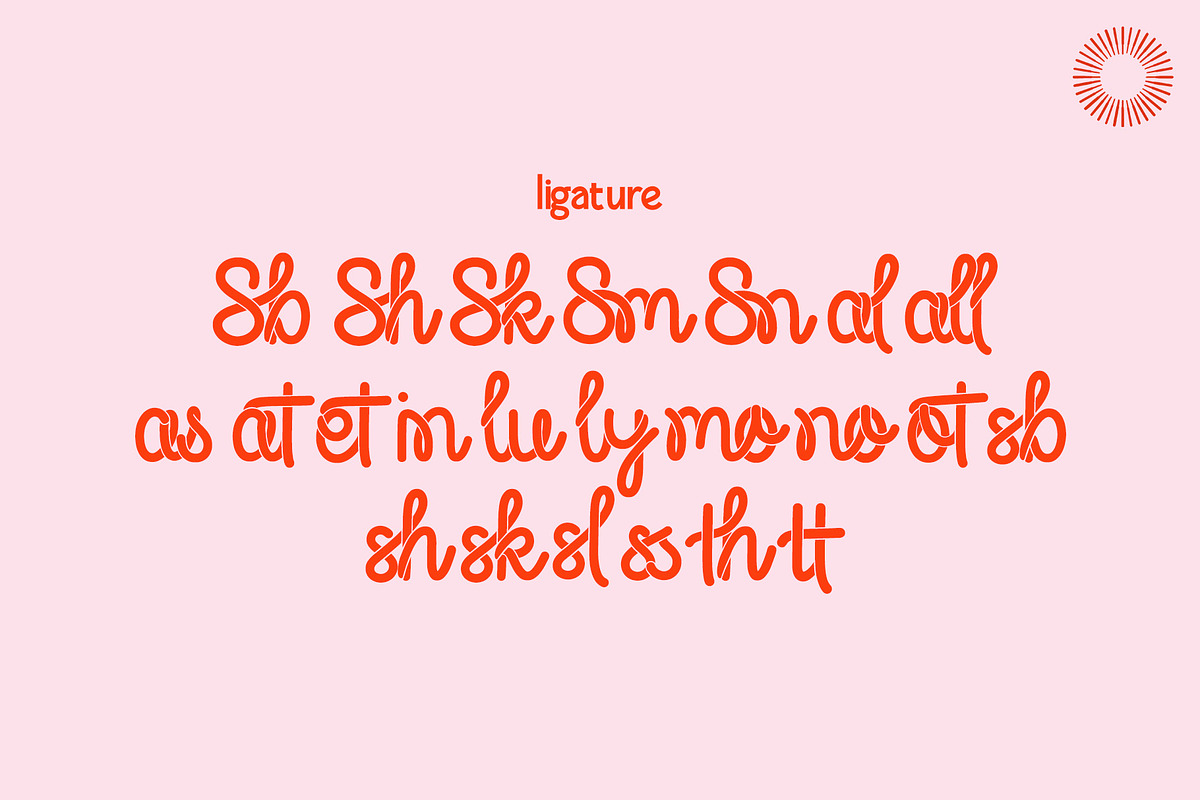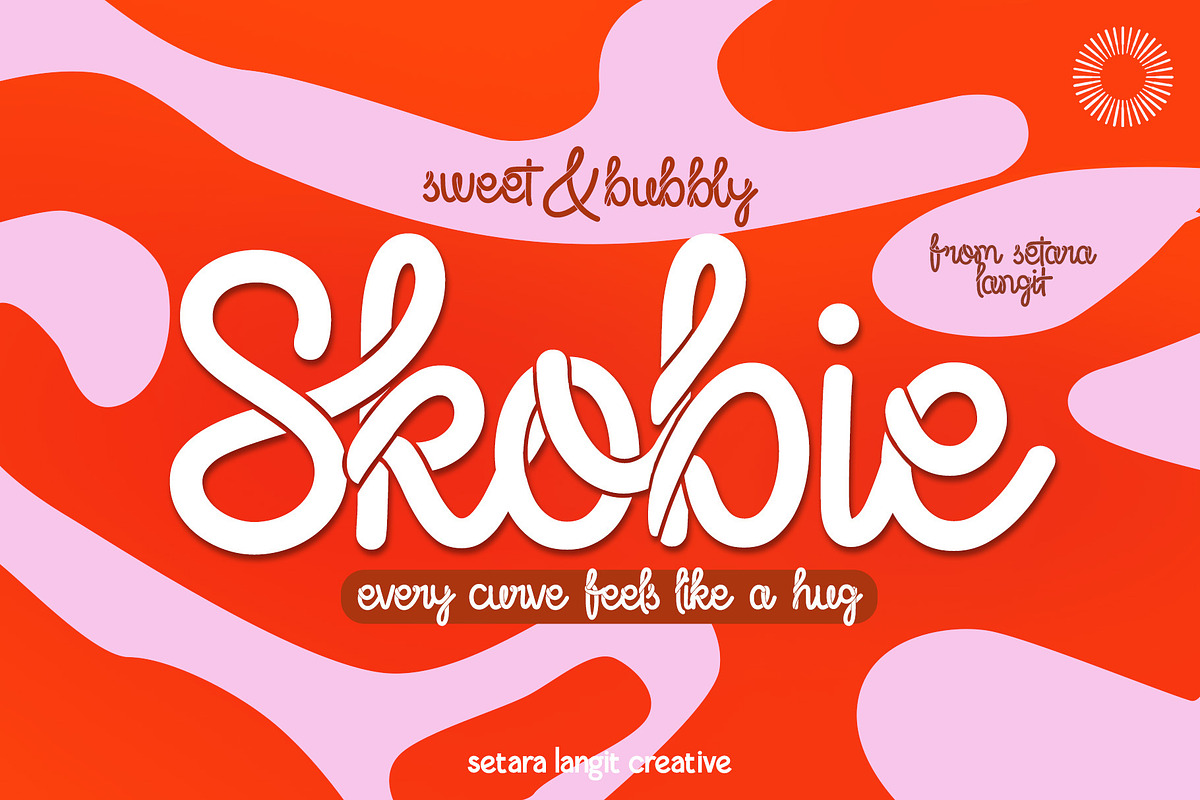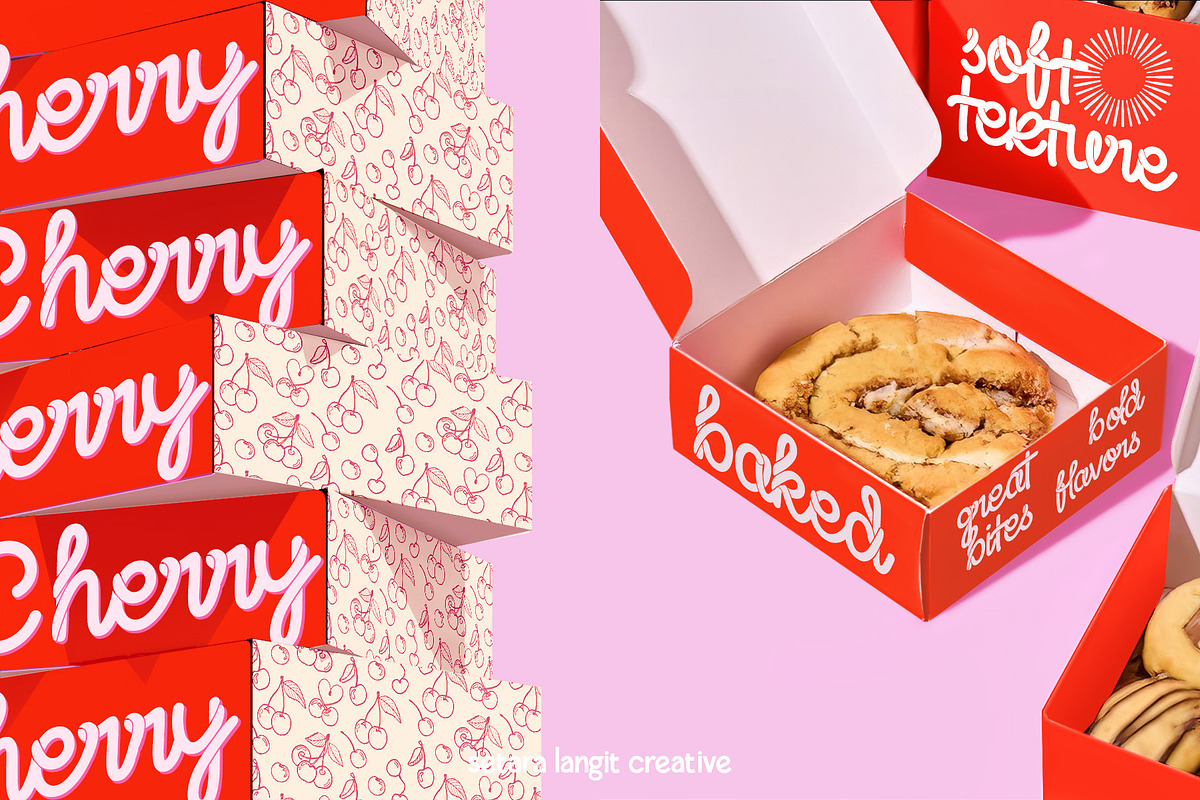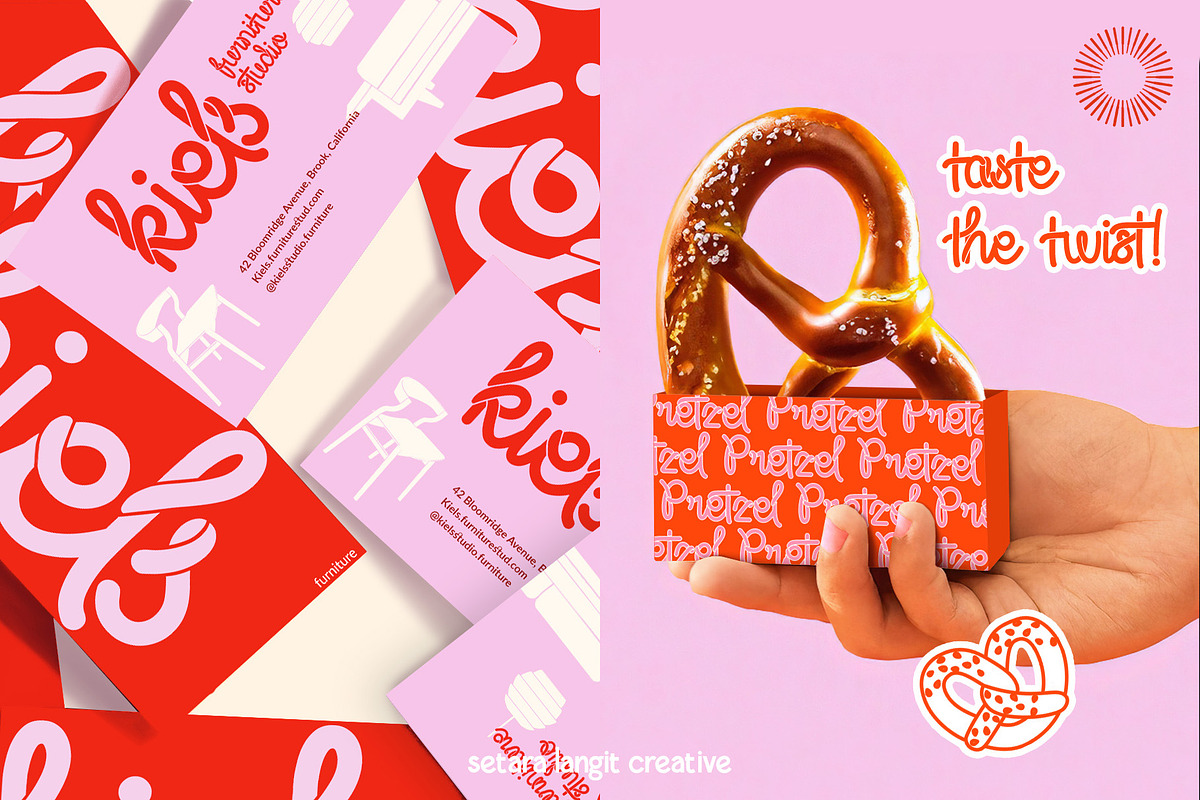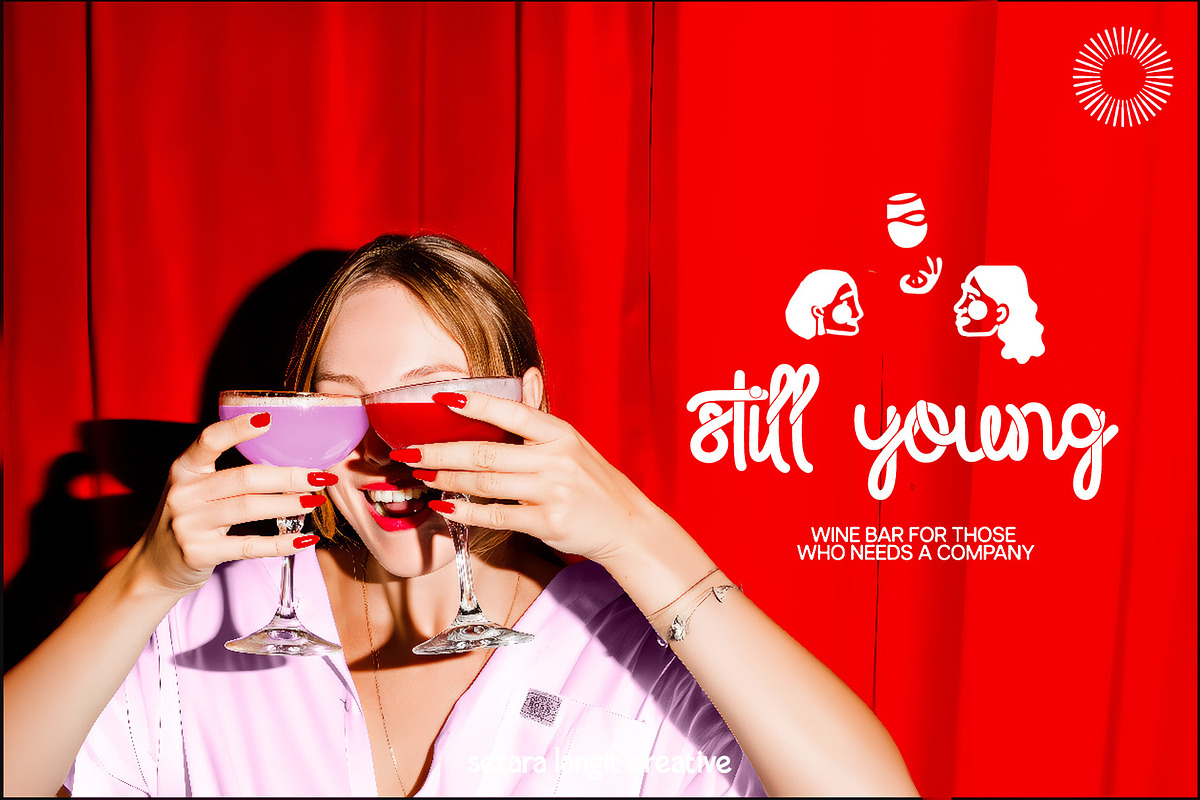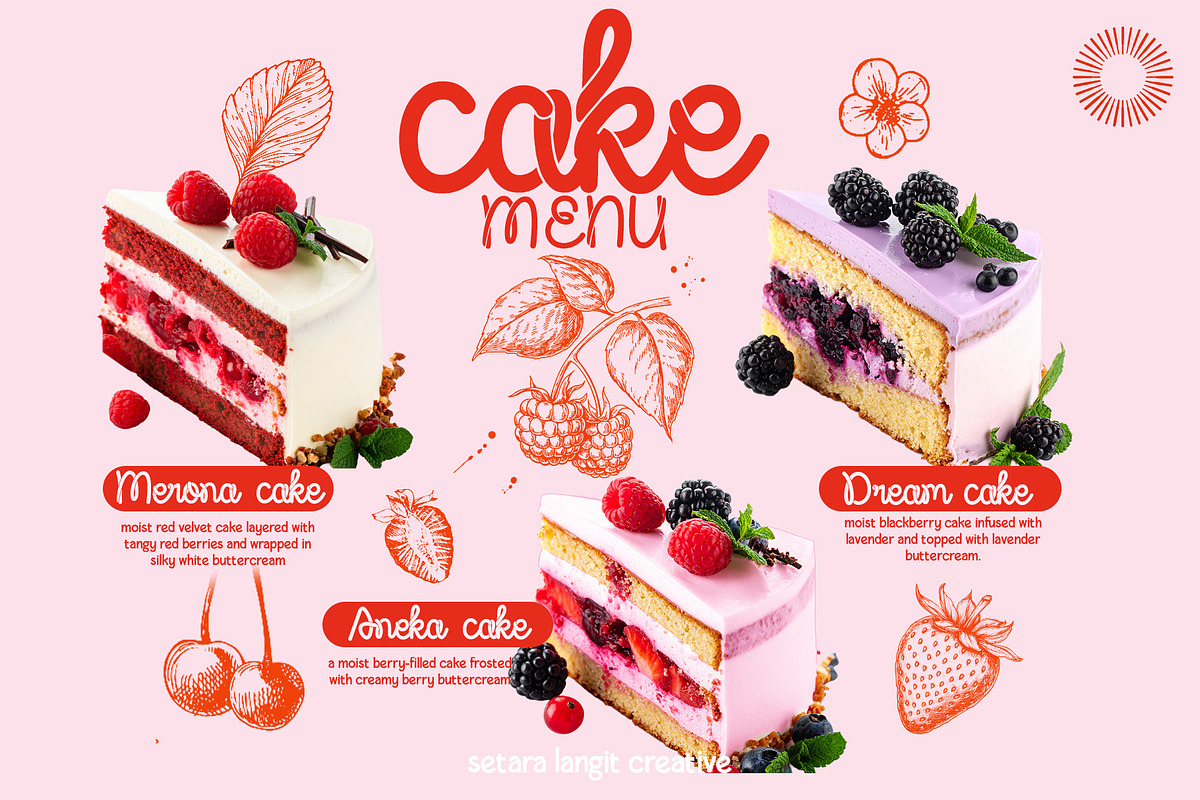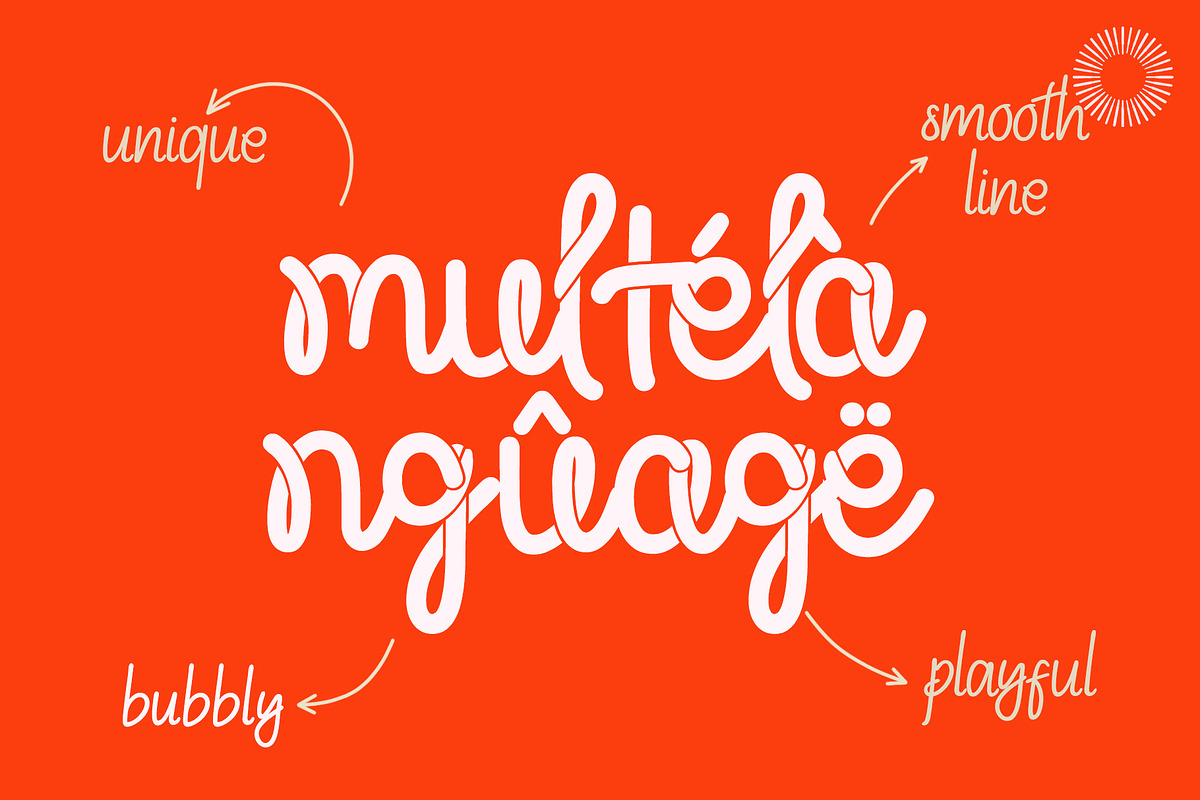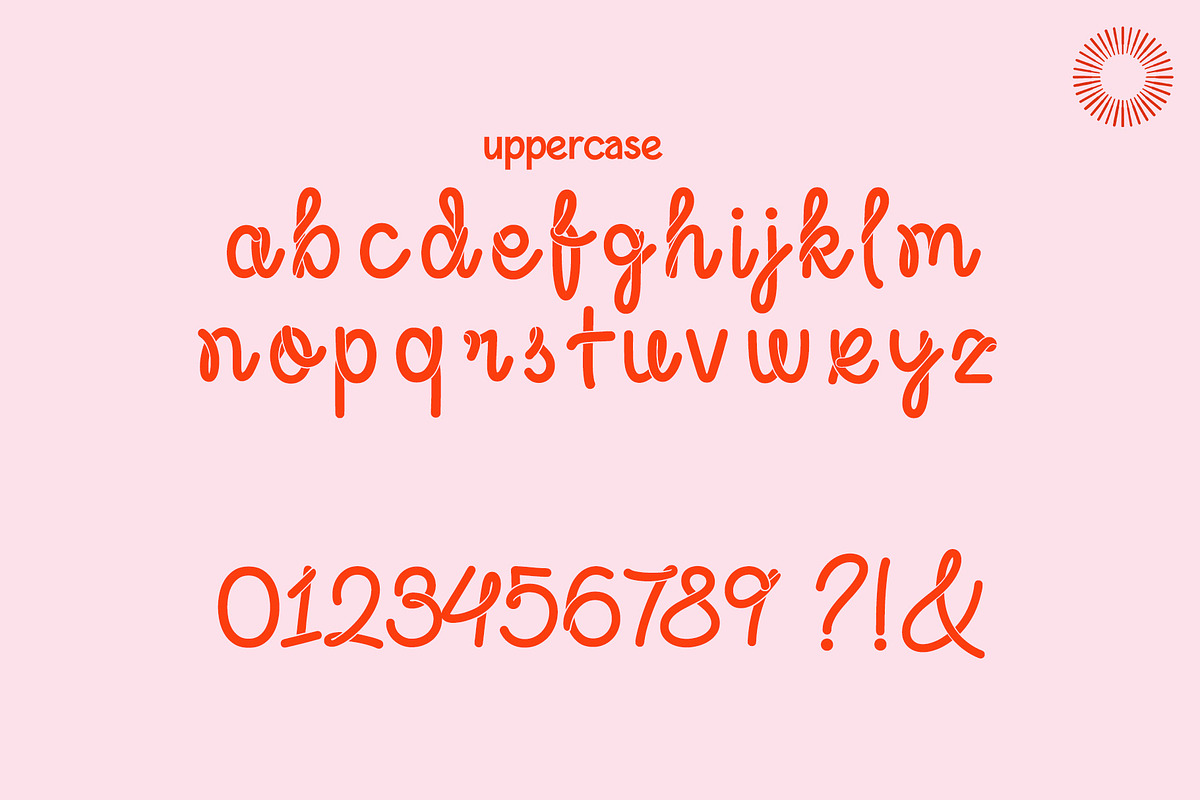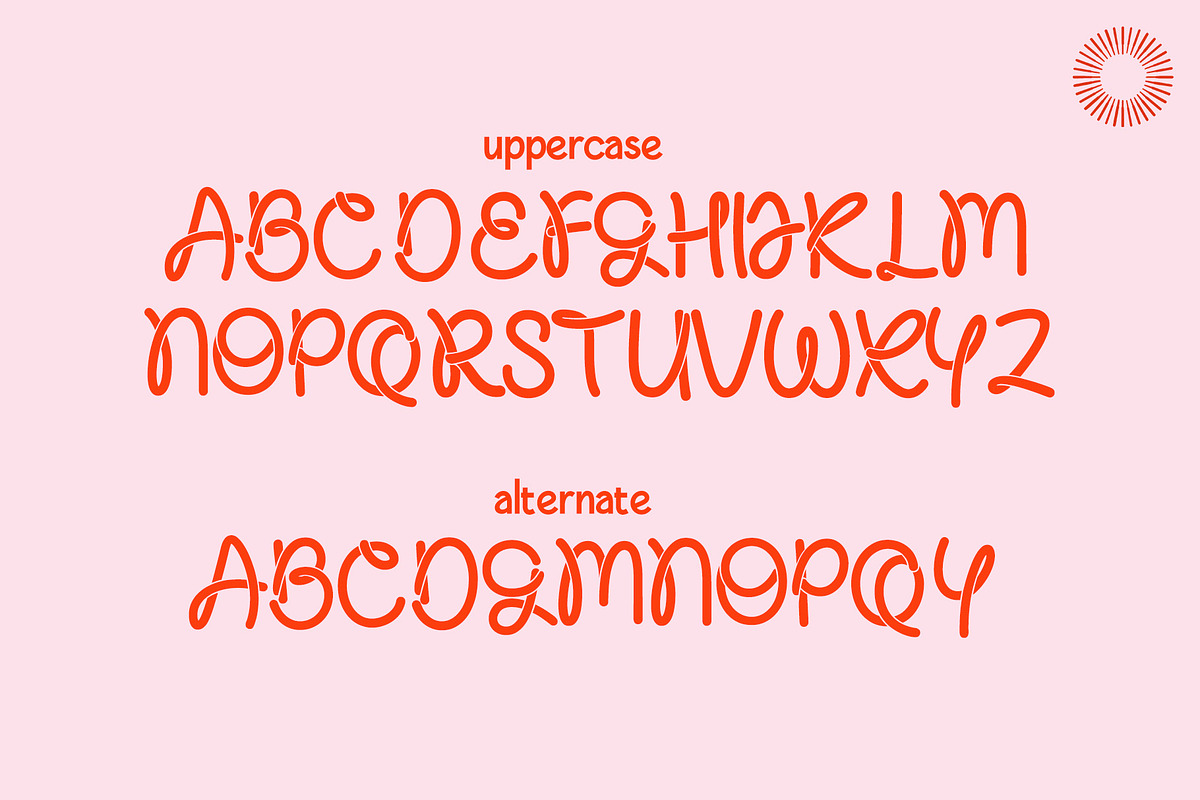
Skobie - Sweet and Bubbly
Say hi to Skobie — a bubbly script font full of charm and curves! Skobie is a one-of-a-kind typeface inspired by ribbons, knots, and sweet handwriting. With its looping strokes and smooth flow, this font feels like a warm hug — soft, stylish, and a little bit cheeky. Whether you're creating a logo, packaging, social content, or a cute quote, Skobie adds a personal, playful twist that’s hard to resist.
Its friendly energy makes it perfect for brands that want to feel fun, youthful, and full of personality.